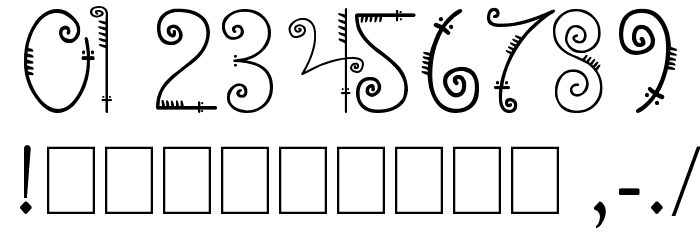
mentawai Font
mentawai Description
This font features an intricate and decorative style, characterized by elaborate swirls and embellishments on each letter and number. The uppercase letters are particularly ornate, with unique flourishes that extend from the main strokes, giving a whimsical and artistic appearance. The lowercase letters maintain a similar decorative theme, ensuring consistency throughout the typeface. Numbers are equally stylized, with curves and accents that mirror the letters' design. The special characters are crafted with the same attention to detail, making this font ideal for creative and artistic projects. The overall look is playful yet sophisticated, suitable for designs that require a touch of elegance and creativity.
An ornate and decorative font with intricate swirls and embellishments from Curly fonts.
- Proposed Projects: Ideal for wedding invitations, artistic posters, branding for creative businesses, and decorative book covers.
- Use Case: Headlines, Logos, Artistic projects